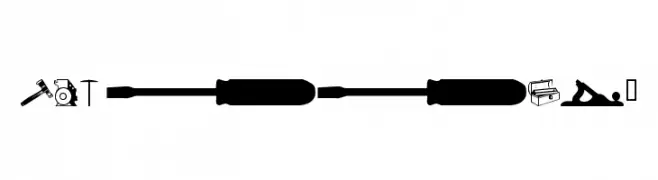
A playful, cartoon-style icon set with medical themes.
Whimsical cartoon heads form each character in a decorative display font.
A novelty font made up of quirky cartoon character illustrations.
A decorative cartoon/comic illustration font with unique images for each character.
Hand-drawn dingbat font with cartoon facial features and heads.
A quirky, hand-drawn cartoon character font.
An ornate and bold decorative font with intricate flourishes.
A playful, cartoonish font with irregular, hand-drawn letterforms.
A hand-tooled font with a three-dimensional, engraved appearance.
A bold, playful font with vintage cartoon flair and exaggerated serifs.
A playful, hand-drawn font with a cartoon-like style and rounded edges.
A classic serif font with a hand-tooled, italicized style, offering elegance and readability.
A playful, hand-drawn font with a cartoonish and whimsical style.
A playful, 3D hand-drawn font with bold outlines and textured interiors.
A decorative tool-themed font with each character depicted as a tool silhouette.
Outlined icon set with uniform stroke and rounded shapes.
A minimalist icon set depicting various carpenter tools in monochrome.
A bold, cartoonish font with thick, uneven strokes and a playful style.
A playful, hand-drawn font with a cartoonish and whimsical style.
A playful, cartoon-inspired font with bold, hand-drawn characters.
A playful, 3D cartoon block font with a Christmas theme and snow-capped letters.
An ornate and bold script font with intricate swirls and decorative flair.
A playful, hand-drawn font with a cartoonish, whimsical style.
A bold, cartoonish font with thick outlines and playful character shapes.
A bold, playful font with jagged, cartoonish horror-inspired characters.
A bold, cartoonish font with a playful, hand-drawn style.
A bold, jagged, and playful font with a cartoonish, horror-themed aesthetic.
Whimsical, retro cartoon character illustrations in a decorative style.